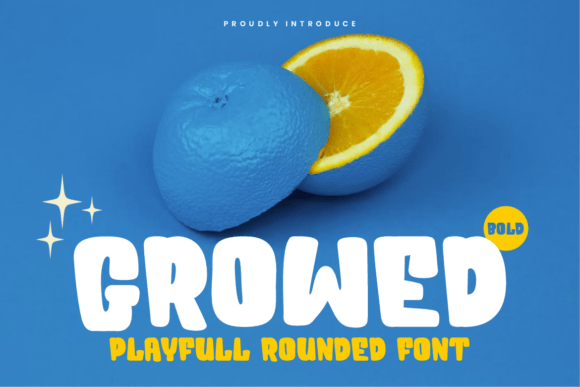
Introducing Growed Font: The Ultimate Display Font for Playful and Friendly Headlines
Are you looking for a font that can add a touch of playfulness and friendliness to your headlines? Look no further than Growed Font, a bold and rounded display font that turns text into soft, huggable shapes. With its thick, blobby strokes, generous x-height, and pillowy terminals, Growed Font is perfect for creating eye-catching posters, packaging, thumbnails, and stickers that demand attention.
What Makes Growed Font So Special?
Growed Font is a unique and versatile typeface that offers a range of features that make it ideal for a variety of design applications. Here are just a few of the things that set Growed Font apart:
- Thick, blobby strokes: Growed Font features thick, blobby strokes that give every word a friendly and approachable feel.
- Generous x-height: The font’s generous x-height makes it easy to read, even at smaller sizes.
- Pillowy terminals: The pillowy terminals add a touch of softness and playfulness to every character.
- Smooth curves: The font’s smooth curves ensure that text remains clear and legible, even at larger sizes.
How to Use Growed Font
Growed Font is incredibly versatile and can be used in a variety of ways to add a touch of playfulness and friendliness to your designs. Here are a few ideas to get you started:
- Use it big for instant impact: Growed Font is perfect for creating eye-catching headlines and titles that demand attention. Use it at larger sizes to create a bold and playful look.
- Tighten the tracking for compact badges: For smaller designs, such as badges or icons, try tightening the tracking to create a more compact and cohesive look.
- Space it wide for airy pop-art vibes: For a more playful and airy look, try spacing the text out to create a sense of movement and energy.
Pairing Growed Font with Other Fonts
Growed Font pairs perfectly with clean sans serifs and bright palettes, making it ideal for a range of design applications. Here are a few font pairing ideas to try:
- Clean sans serifs: Pair Growed Font with a clean sans serif font, such as Open Sans or Lato, to create a bold and playful look.
- Bright palettes: Growed Font loves bright and bold palettes, so try pairing it with a vibrant color scheme to create a fun and playful look.
What Growed Font Is Ideal For
Growed Font is perfect for a range of design applications, including:
- Kids’ products: Growed Font is ideal for kids’ products, such as toys, games, and children’s books.
- Snacks: The font’s playful and friendly feel makes it perfect for snack packaging and branding.
- Summer events: Growed Font is perfect for summer events, such as festivals, concerts, and outdoor activities.
- DIY crafts: The font’s playful and creative feel makes it ideal for DIY craft projects and tutorials.
- Fun social graphics: Growed Font is perfect for creating fun and engaging social graphics, such as memes, GIFs, and social media posts.
Features of Growed Font
Growed Font includes a range of features that make it easy to use and versatile. Here are just a few of the features you can expect:
- Uppercase and lowercase letters: Growed Font includes both uppercase and lowercase letters, making it perfect for creating titles, headlines, and short taglines.
- Numerals and punctuation: The font includes numerals and punctuation, making it easy to create flexible and dynamic text.
- PUA encoded: Growed Font is PUA encoded, allowing effortless access to all glyphs, swashes, and alternate characters.
Growed Font is a bold, playful, and friendly display font that’s perfect for creating eye-catching headlines and titles. With its thick, blobby strokes, generous x-height, and pillowy terminals, Growed Font is ideal for a range of design applications, from kids’ products to summer events. Whether you’re looking to create a bold and playful look or a more compact and cohesive design, Growed Font is the perfect choice.